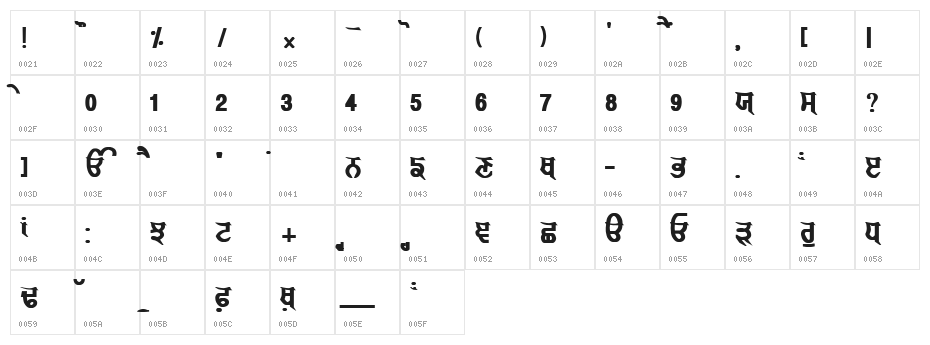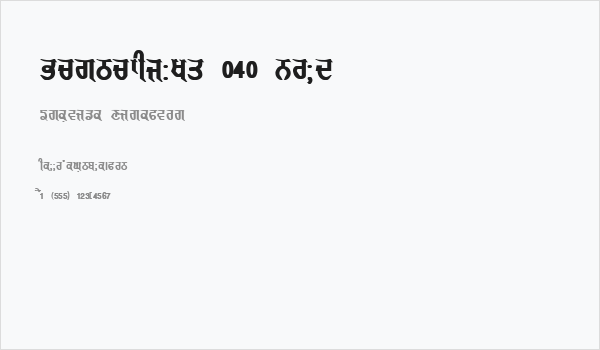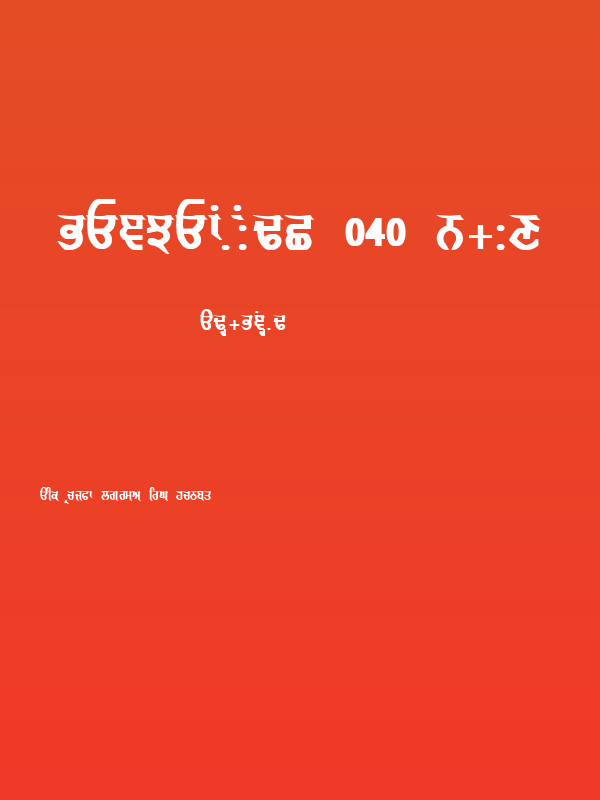
GurmukhiLys 040 Bold Font
GurmukhiLys 040 Bold Description
This font features a bold and striking design, characterized by its strong, thick strokes and high contrast. The Gurmukhi script is presented with a modern flair, making it highly legible while maintaining traditional elements. The numerals are clear and bold, matching the overall weight of the script. Special characters are distinct and well-integrated, ensuring consistency across the font. The style is both functional and decorative, suitable for a variety of applications where readability and impact are essential.